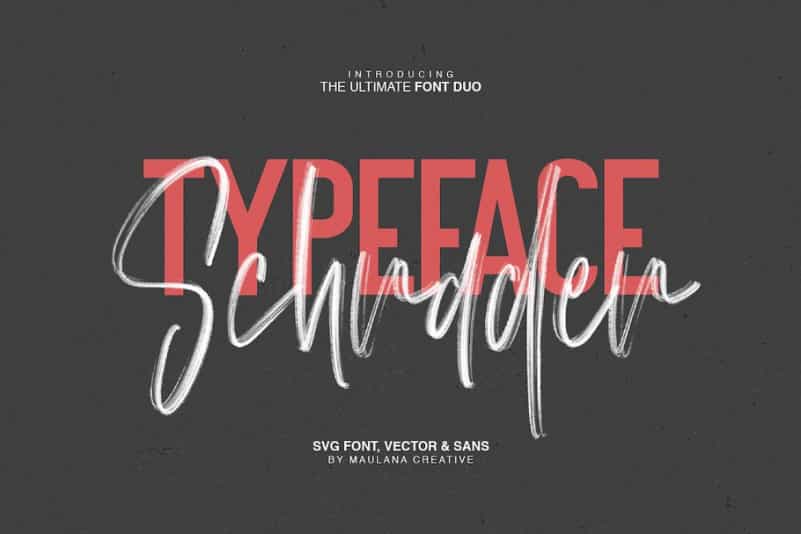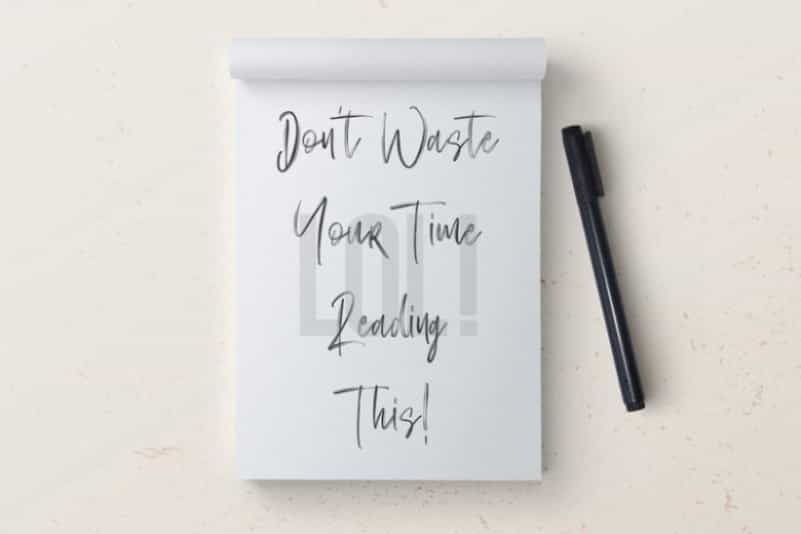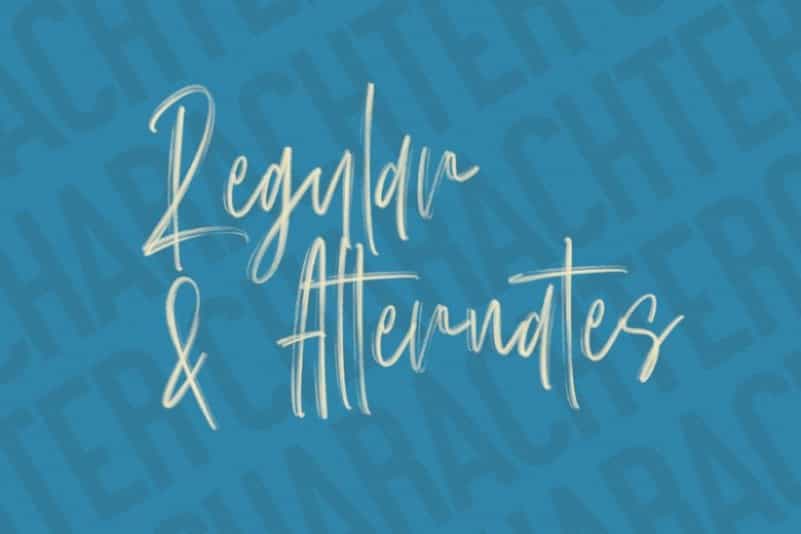
Discover Schrader SVG Brush Font, part of the Brush collection—a versatile and unique font perfect for adding a personal touch to your projects. Download it for free and enjoy crafting designs with style, from invitations to social media posts. This font is available exclusively for personal use, giving you the freedom to create without limits. Unlock your creativity with Schrader SVG Brush Font today!
Meet the Schrader font. A SVG font duo featuring a brush and sans font. Perfect for design projects, logos and creative endeavors. Created by Maulana Creative to give your designs an authentic handcrafted brush feel.